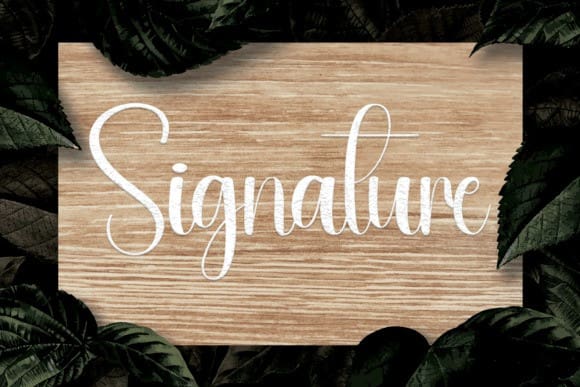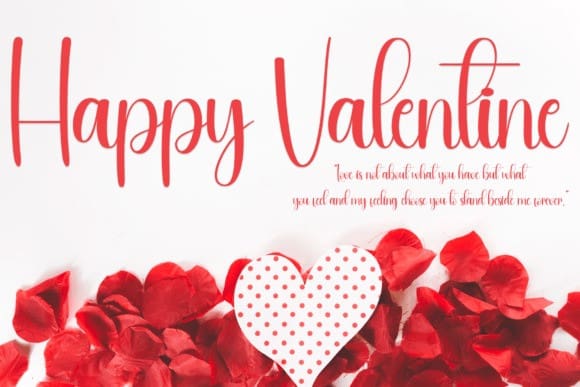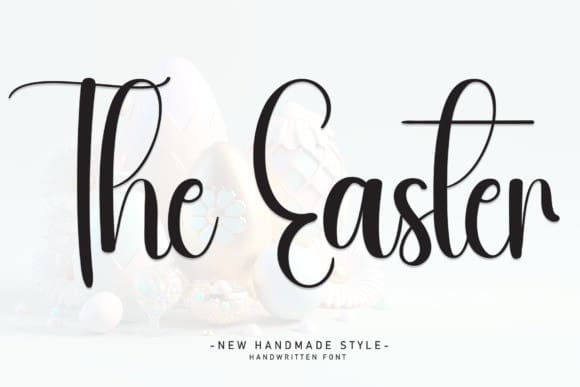
The Easter Font
The Easter Font is a sweet and friendly handwritten font. Fresh and neat, this font is ideal for writing wedding invitations, cards, or any other design that might need a fun touch!